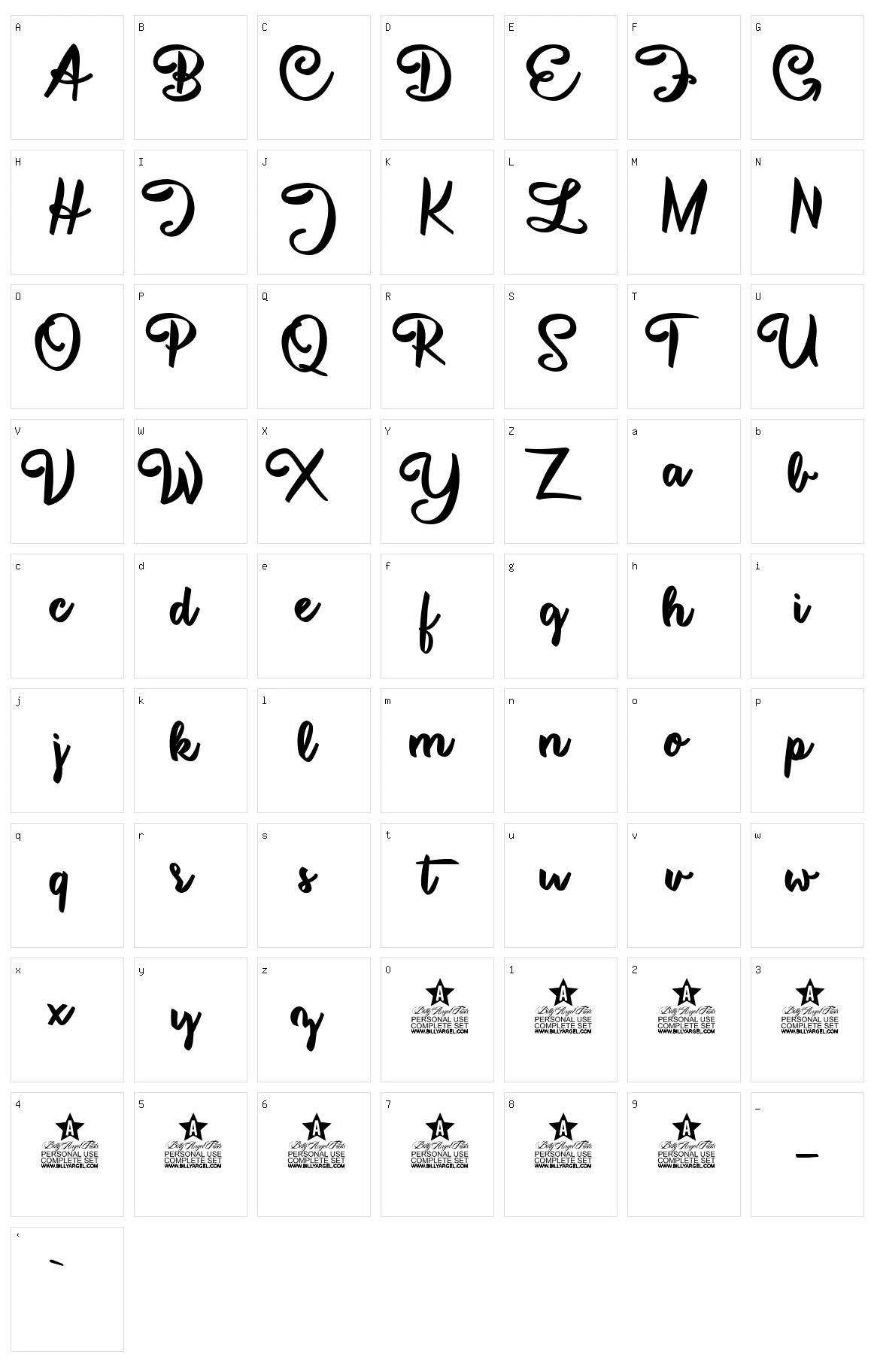
The free font Superstar is carefully designed by Billy Argel Fonts ?, showcasing a thoughtful balance of creativity and usability and falls under the Script font style. When you download the ZIP file, it contains only 149.48 KB of font files, making it lightweight and quick to download. Please review the license details below to understand permitted usage and distribution rights. If license information is not available, we recommend using this font for personal projects only or contacting the author directly for commercial usage permissions.